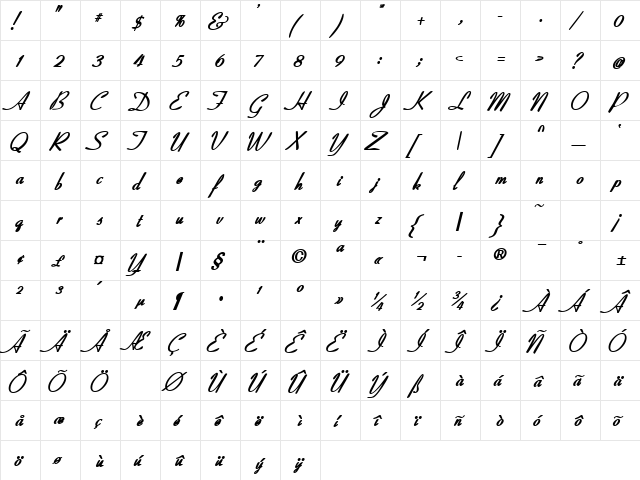
CoronetSSK Bold Italic Font Preview
CoronetSSK Bold Italic
Design Context for CoronetSSK Typeface
CoronetSSK takes a measured approach to typography — its balanced proportions and neutral character make it a reliable workhorse for both digital and print work. The dynamic lean of this cut emphasises speed and emphasis in any layout. The heavy weight commands attention and anchors typographic hierarchies.